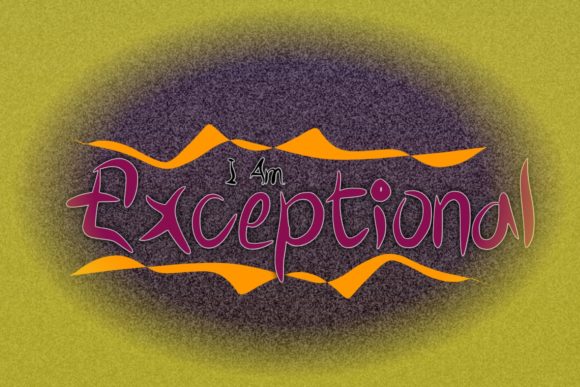
**Introducing I Am Exceptional Font: The Playful and Dazzling Color Font for Your Creative Journey**
Dive into the world of creativity with I Am Exceptional Font, a delightful and vibrant color font that will transform your designs with its charming swashes and delicate strokes. Picture the most exquisite letterheads, captivating titles, and enchanting stationery, all brought to life with the magic of I Am Exceptional Font.
Unlock your imagination and embrace the endless possibilities that await you with this extraordinary font. Its playful personality and lively colors will add a touch of whimsy and delight to any project you embark on, whether it's designing invitations, crafting personalized cards, or creating eye-catching logos.
Experience the joy of expressing yourself through typography like never before. I Am Exceptional Font is your perfect companion for unleashing your creativity and leaving a lasting impression on your audience. Embrace the extraordinary and make your designs truly exceptional.
**Why Choose I Am Exceptional Font?**
* **A Symphony of Colors:** Immerse yourself in a kaleidoscope of colors that will bring your designs to life. I Am Exceptional Font features a captivating palette that adds a touch of vibrancy and personality to every project.
* **Unleash Your Creativity:** Let your imagination run wild as you explore the endless possibilities of this versatile font. I Am Exceptional Font is perfect for a wide range of creative projects, from personal branding to social media graphics.
* **Make a Lasting Impression:** Stand out from the crowd with I Am Exceptional Font. Its unique style and charming details will leave a lasting impression on your audience, ensuring your designs are remembered.
**Experience the I Am Exceptional Difference Today!**
Don't settle for ordinary fonts. Elevate your designs to new heights with I Am Exceptional Font. Its distinctive charm and captivating colors will transform your creative projects into masterpieces. Embrace the exceptional and let your imagination soar.